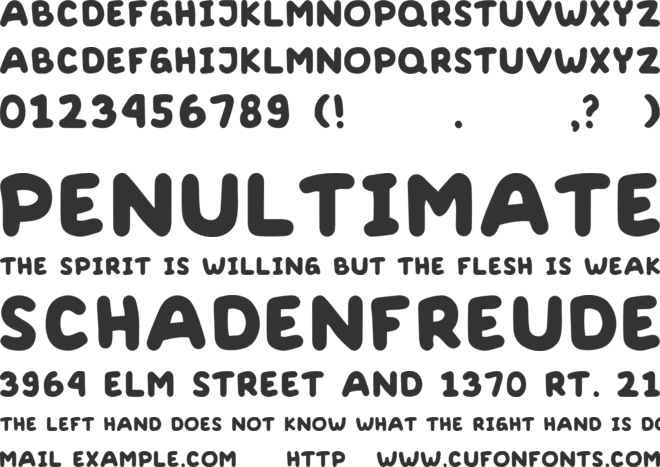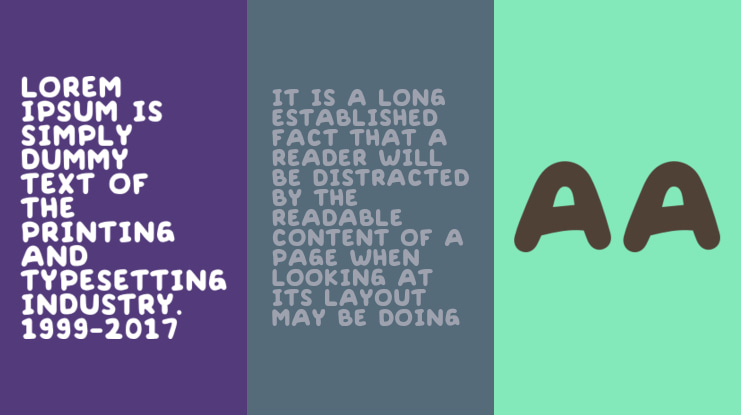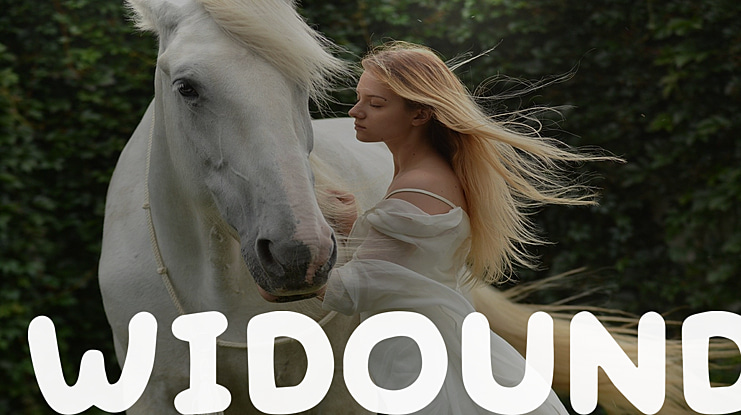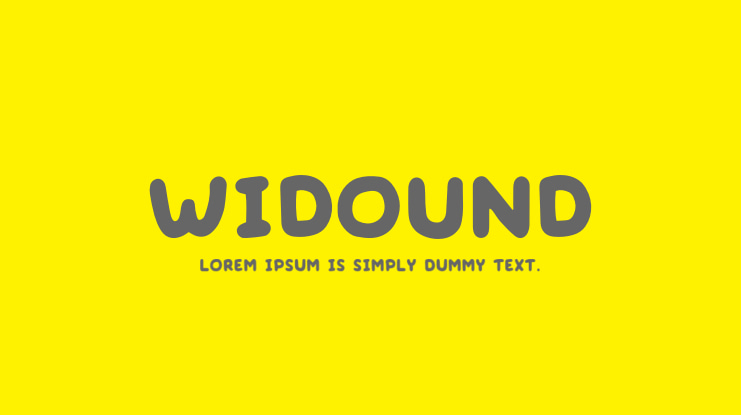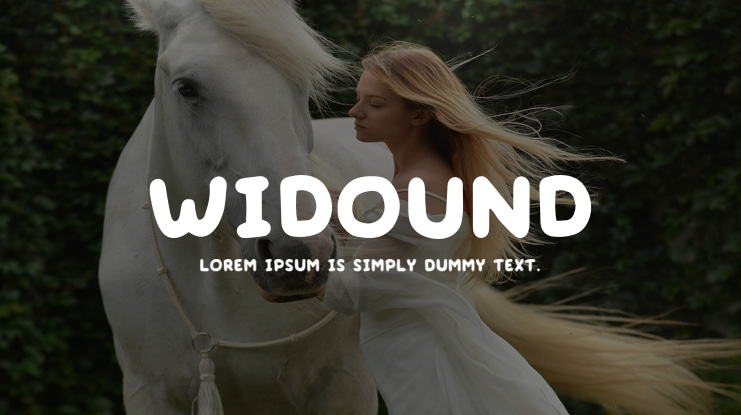
Widound Font
Widound is an acronym from "wide" and "round", the main characteristics of this font. Mainly this font is designed for playful, cheerful, or cartoony themes and mainly for headlines. Feel free to use this font in your ads, products, designs, etc. Thank you!